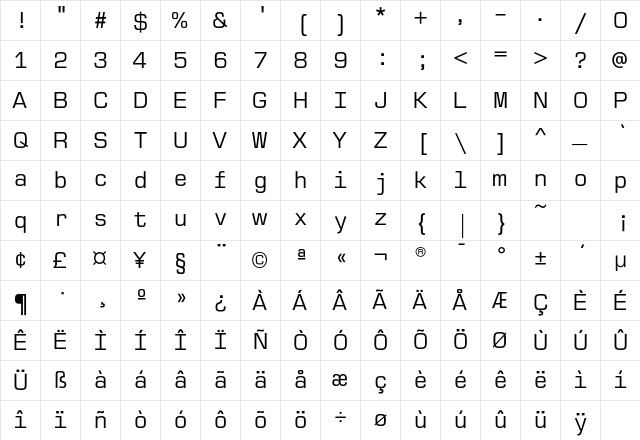
Complete EurostileMonoEF Regular glyph index. Displaying only characters natively supported by EurostileMonoEF Regular font.
EurostileMonoEF uses fixed-width spacing throughout, giving it the structured, systematic character associated with coding environments and technical documentation.
Pro Tip: Use EurostileMonoEF with slightly increased line-height for extended reading - fixed-width spacing can feel dense in longer passages without extra breathing room.